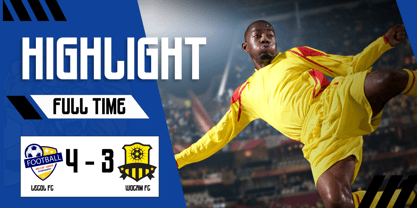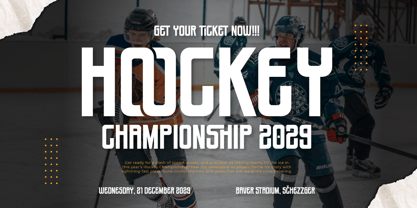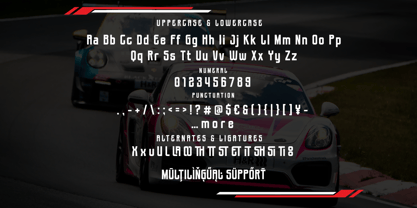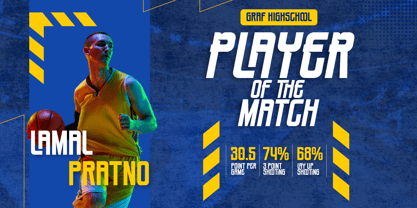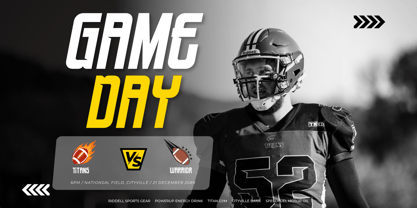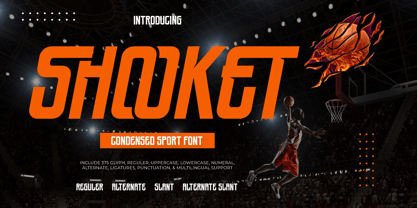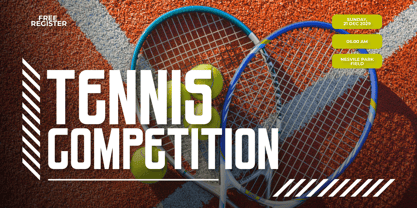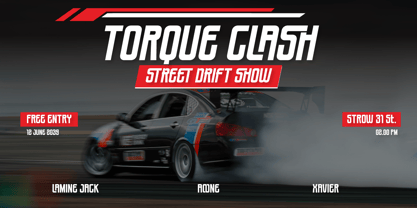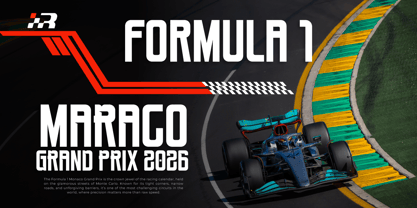
Shooket
DOMINATE THE FIELD WITH UNSHAKEABLE IMPACT AND SPEED-INSPIRED DESIGN.
Shooket is a powerhouse condensed sport font built for victory. With its aggressive proportions, dynamic angles, and athletic energy, this typeface is engineered to make your designs look faster, stronger, and more competitive. Perfect for sports branding, gaming identities, and high-impact headlines, Shooket delivers intensity and professionalism in every glyph.
This ultra-versatile font comes in 4 high-octane styles: clean and bold Regular, sleek and speedy Slant, unique and stylistic Alternate, and the ultimate racing-inspired Alternate Slant. With over 375 glyphs, including uppercase and lowercase characters, numerals, alternates, ligatures, punctuation, and extensive multilingual support, Shooket gives you everything you need to create standout logos, jerseys, posters, and more.
Ideal for esports, motorsports, fitness branding, and any project that demands a bold, win-ready attitude. Gear up with Shooket—and bring the energy of a championship right into your design.
- All glyphs and Feature
- Multilingual Support: Fully supports 85+ languages, including:
Afrikaans, Albanian, Asu, Basque, Bemba, Bena, Breton, Catalan, Chiga, Cornish, Croatian, Czech, Danish, Dutch, Embu, English, Esperanto, Estonian, Filipino, Finnish, French, Friulian, Galician, Gusii, Hungarian, Indonesian, Irish, Italian, Kabuverdianu, Kalenjin, Kamba, Kikuyu, Kinyarwanda, Latvian, Lithuanian, Lower Sorbian, Luo, Luxembourgish, Luyia, Machame, Makhuwa-Meetto, Makonde, Malagasy, Maltese, Manx, Meru, Morisyen, North Ndebele, Norwegian Bokmål, Norwegian Nynorsk, Nyankole, Oromo, Polish, Portuguese, Quechua, Romanian, Romansh, Rombo, Rundi, Rwa, Samburu, Sango, Sangu, Scottish Gaelic, Sena, Serbian, Shambala, Shona, Slovak, Slovenian, Soga, Somali, Spanish, Swahili, Swedish, Swiss German, Taita, Teso, Turkish, Upper Sorbian, Uzbek (Latin), Volapük, Vunjo, Walser, Zulu.